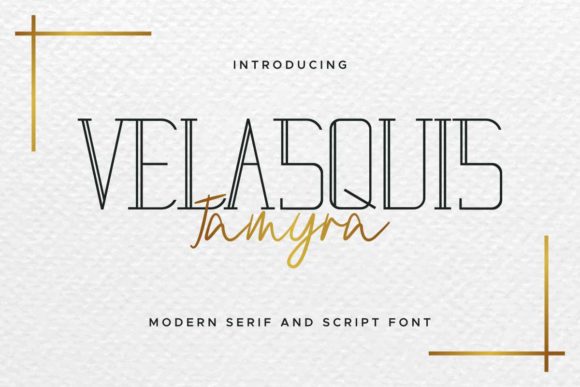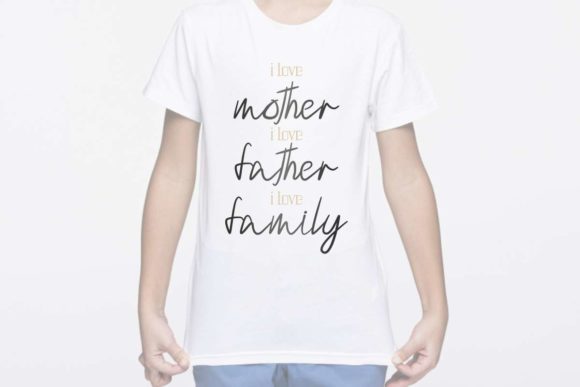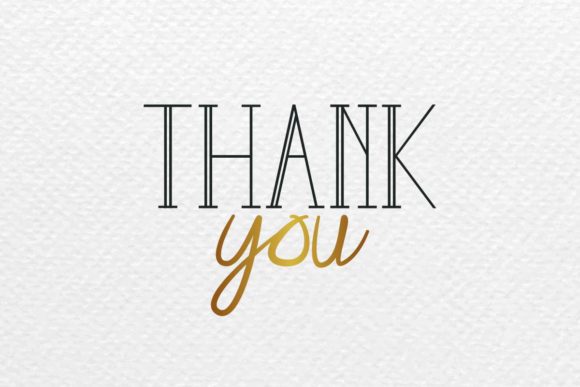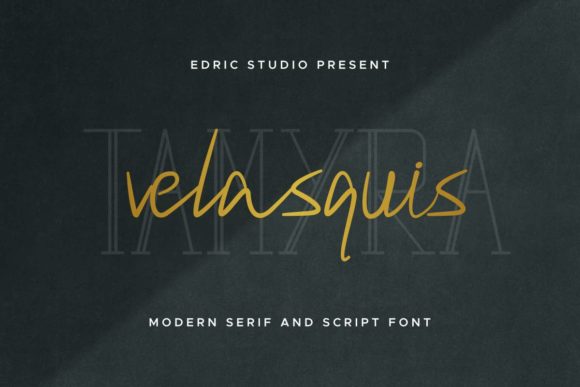
About Velasquis Tamyra Font
Velasquis Tamyra is a unique and beautiful Duo Font. It perfectly combines a script style with a serif. This versatility will give a modern and sophisticated touch to your designs. Get inspired by its authentic feel and use it to create gorgeous wedding invitations, beautiful stationary art, eye-catching social media posts, and cute greeting cards.